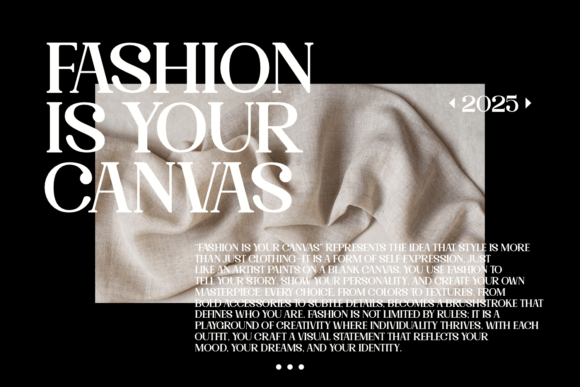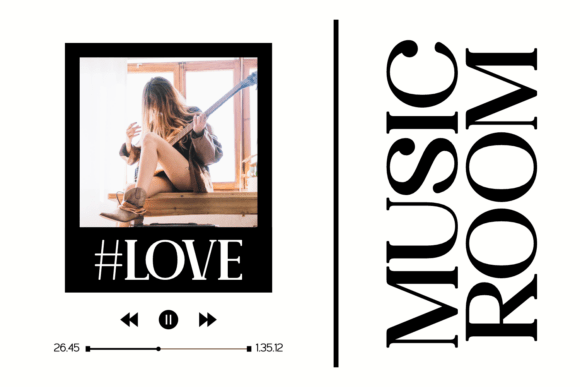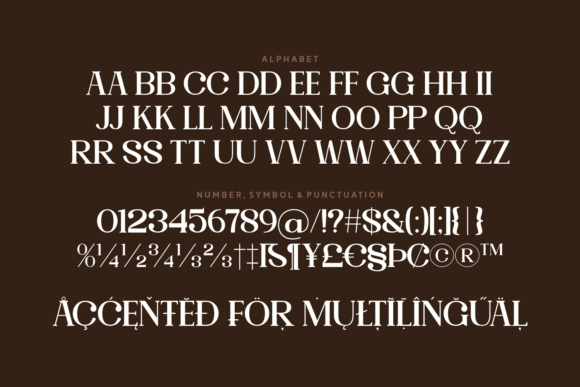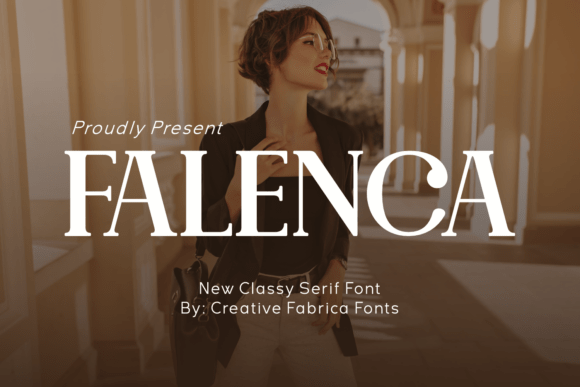
Introducing Falenca Font: Elevate Your Designs with Elegance and Sophistication
In the world of typography, a font can make or break a design. For designers and crafters seeking to add a touch of luxury and refinement to their work, Falenca Font is an exceptional choice. This new classy serif font is specifically designed to exude elegance and sophistication, making it perfect for high-end applications.
The Essence of Falenca Font
Falenca Font boasts refined strokes, graceful curves, and timeless proportions that evoke a sense of classic beauty. Its design strikes the perfect balance between modern minimalism and traditional elegance, ensuring that every design feels polished and high-end. Whether you’re working on fashion branding, editorial layouts, luxury packaging, or wedding invitations, Falenca Font is the ideal choice.
Key Features of Falenca Font
- Refined Strokes: Falenca Font features smooth, refined strokes that add a level of sophistication to any design.
- Graceful Curves: The font’s elegant curves bring a sense of fluidity and movement, making it perfect for designs that require a touch of dynamism.
- Timeless Proportions: Falenca Font’s classic proportions ensure that it remains legible and stylish, even in smaller sizes.
- Modern Minimalism: The font’s clean lines and minimalist aesthetic make it an excellent choice for modern designs that require a touch of elegance.
Applications of Falenca Font
Falenca Font’s versatility makes it suitable for a wide range of applications, including:
- Fashion Branding: Use Falenca Font to create luxurious brand identities that exude elegance and sophistication.
- Editorial Layouts: Add a touch of refinement to your editorial designs, such as magazines, newspapers, and books.
- Luxury Packaging: Elevate your packaging designs with Falenca Font’s classic, high-end aesthetic.
- Wedding Invitations: Make your wedding invitations truly special with Falenca Font’s elegant and sophisticated style.
Why Choose Falenca Font?
In a world where typography plays a crucial role in design, Falenca Font stands out as an exceptional choice for designers and crafters seeking to add a touch of luxury to their work. Here are just a few reasons why:
- Elegance: Falenca Font’s refined strokes, graceful curves, and timeless proportions make it the epitome of elegance.
- Sophistication: The font’s classic beauty and modern minimalism ensure that every design feels polished and high-end.
- Versatility: Falenca Font is suitable for a wide range of applications, from fashion branding to wedding invitations.
Falenca Font is an exceptional choice for designers and crafters seeking to add a touch of luxury and refinement to their work. With its refined strokes, graceful curves, and timeless proportions, this classy serif font is perfect for high-end applications. Whether you’re working on fashion branding, editorial layouts, luxury packaging, or wedding invitations, Falenca Font is sure to elevate your designs to new heights.